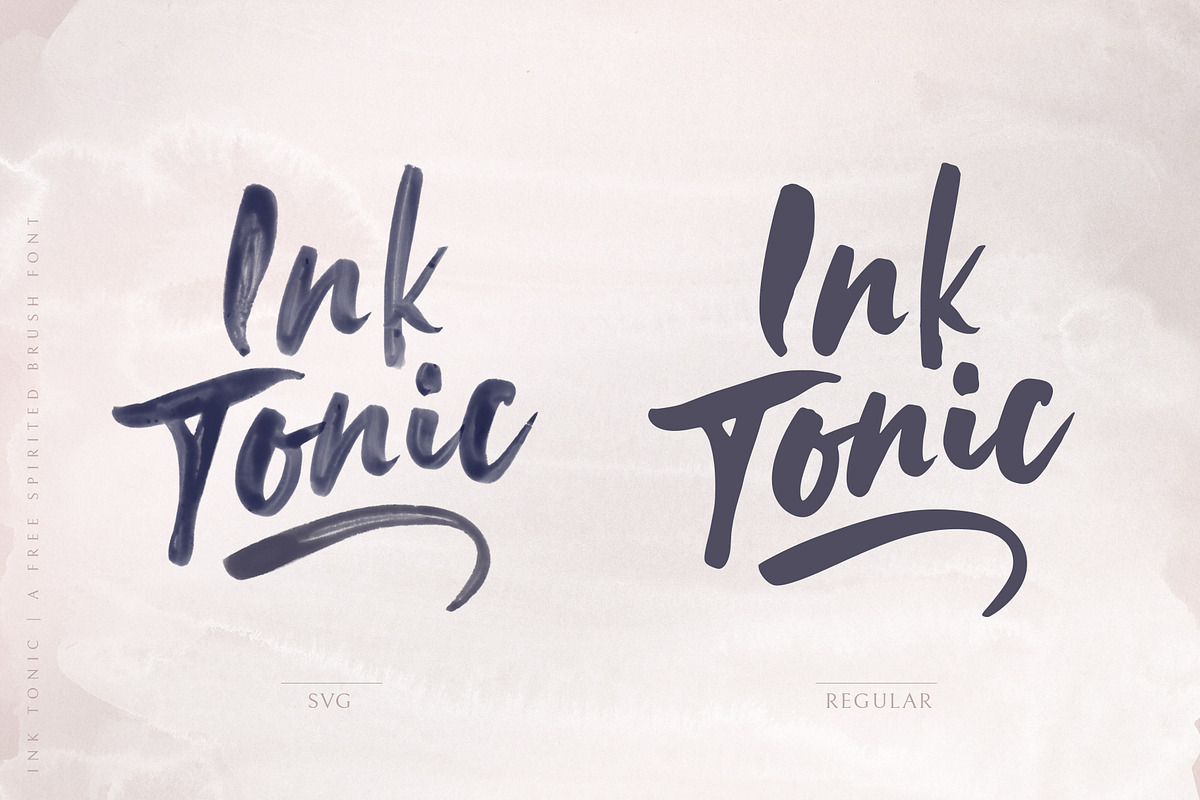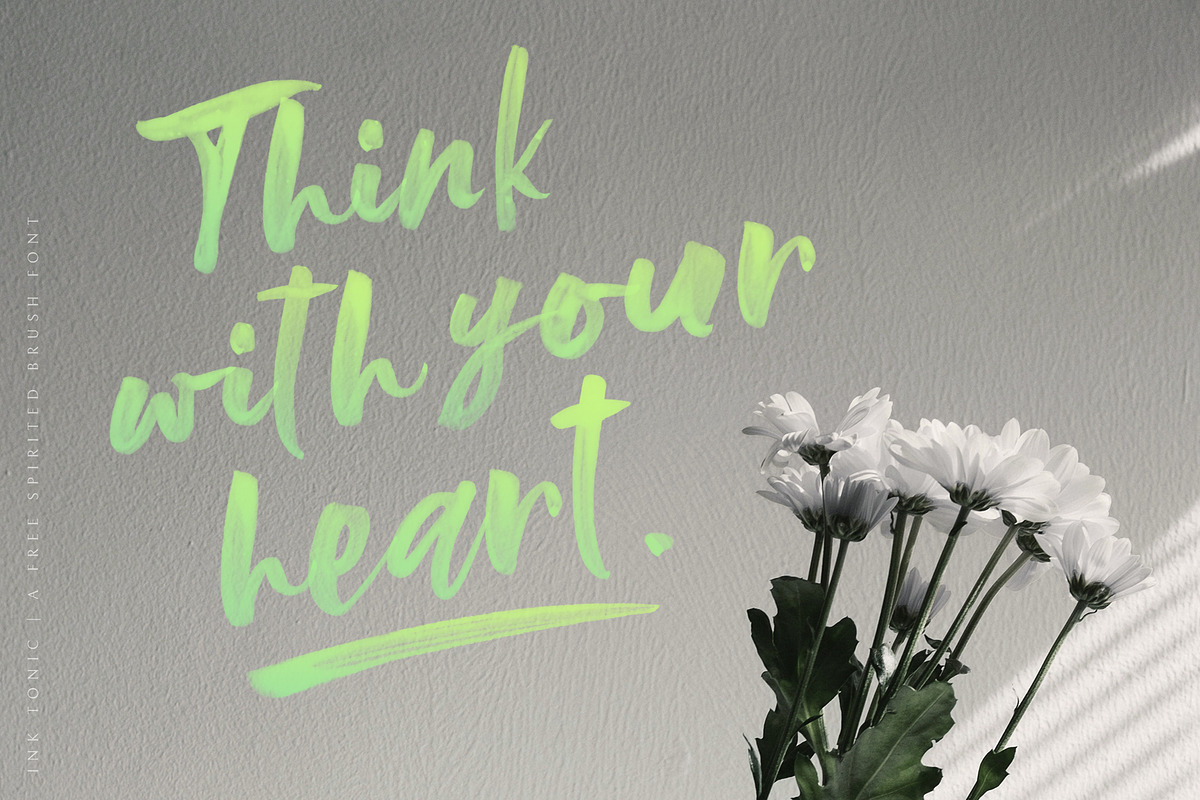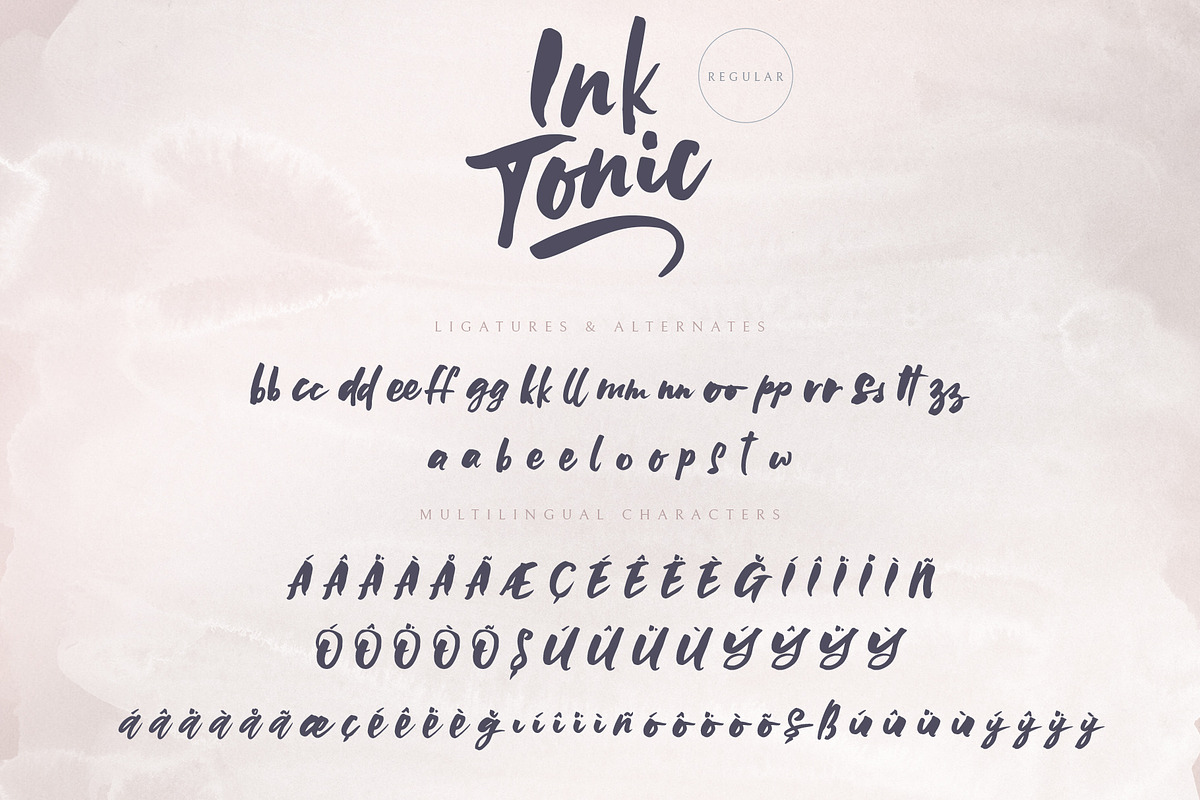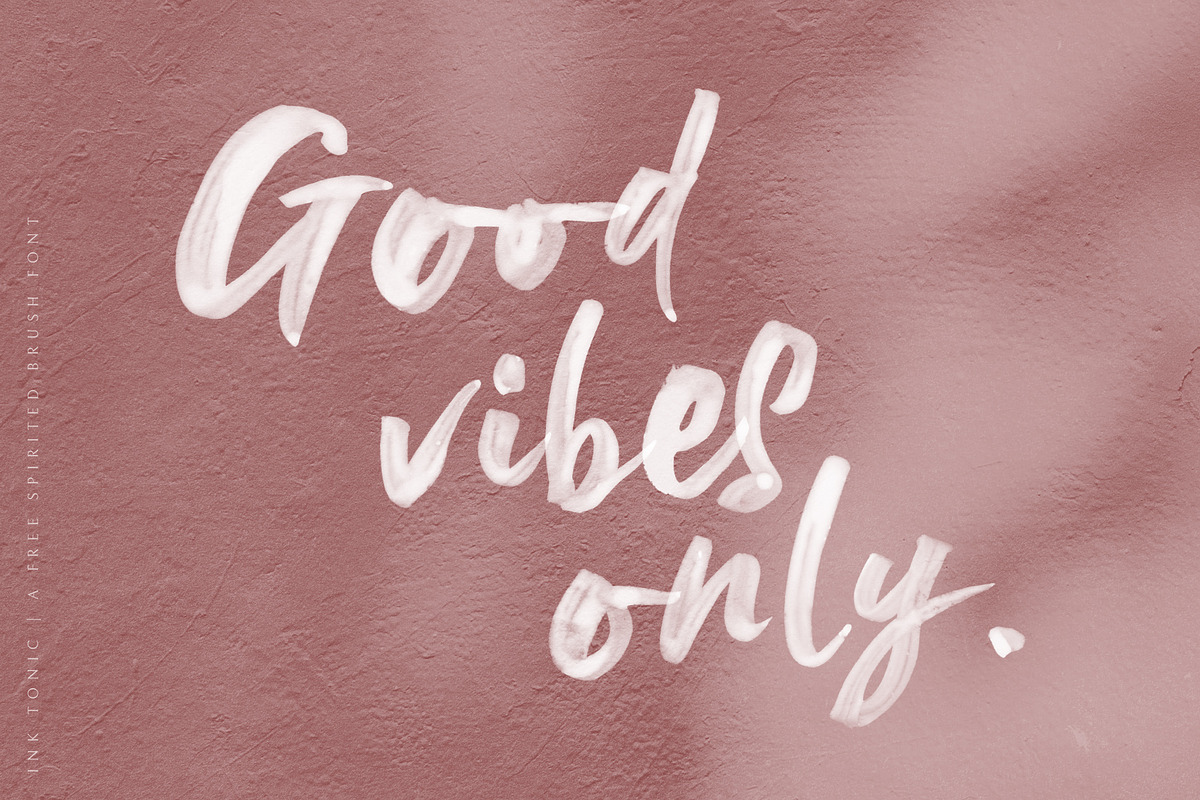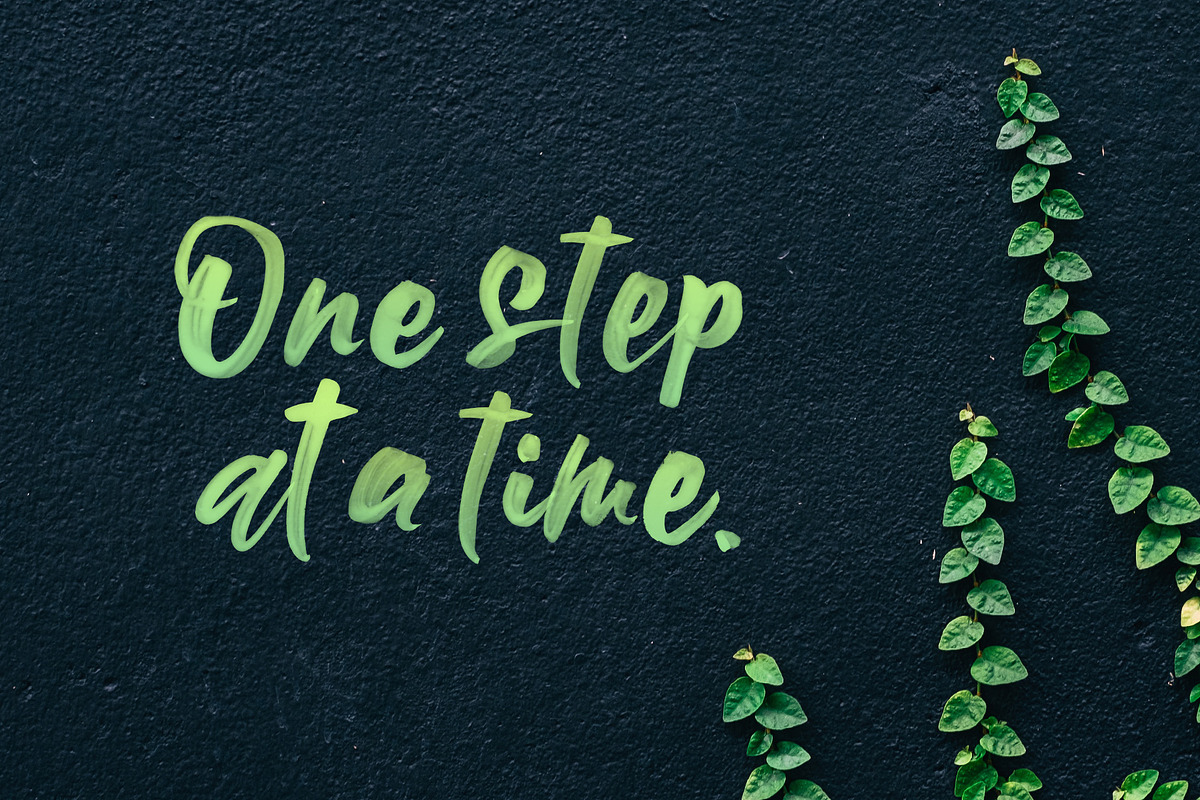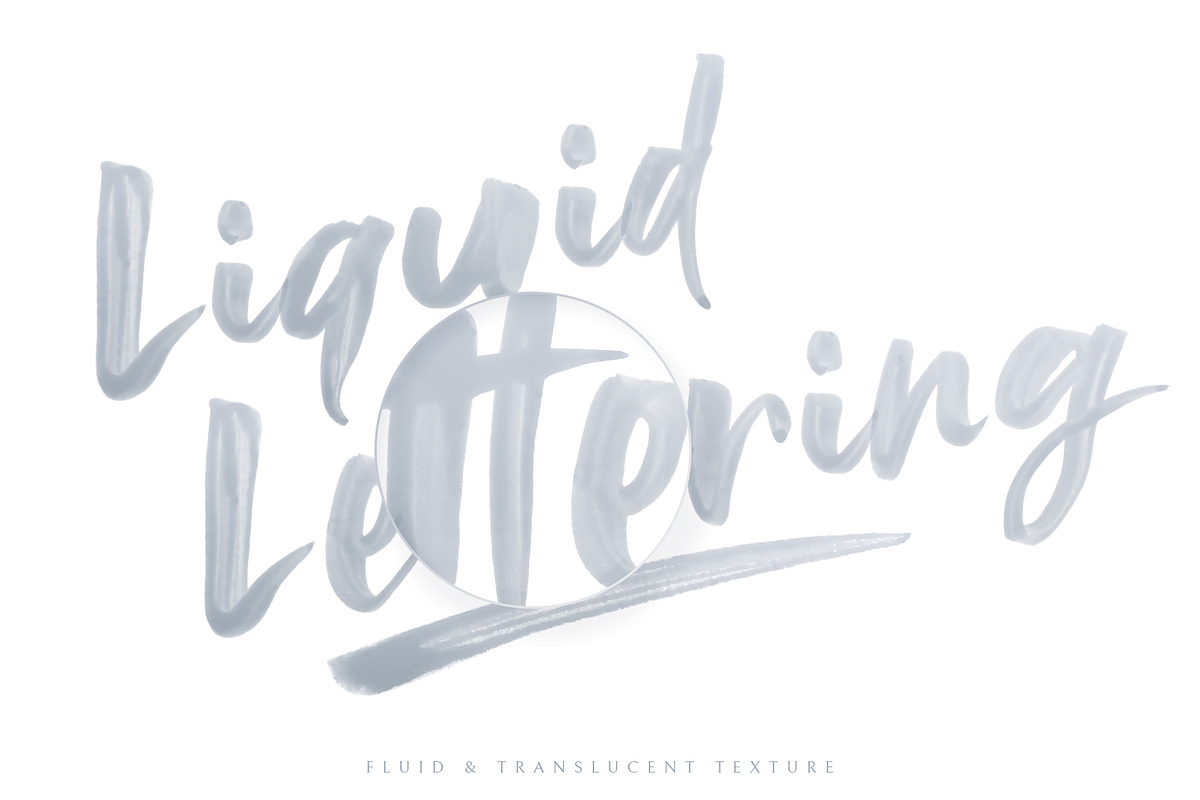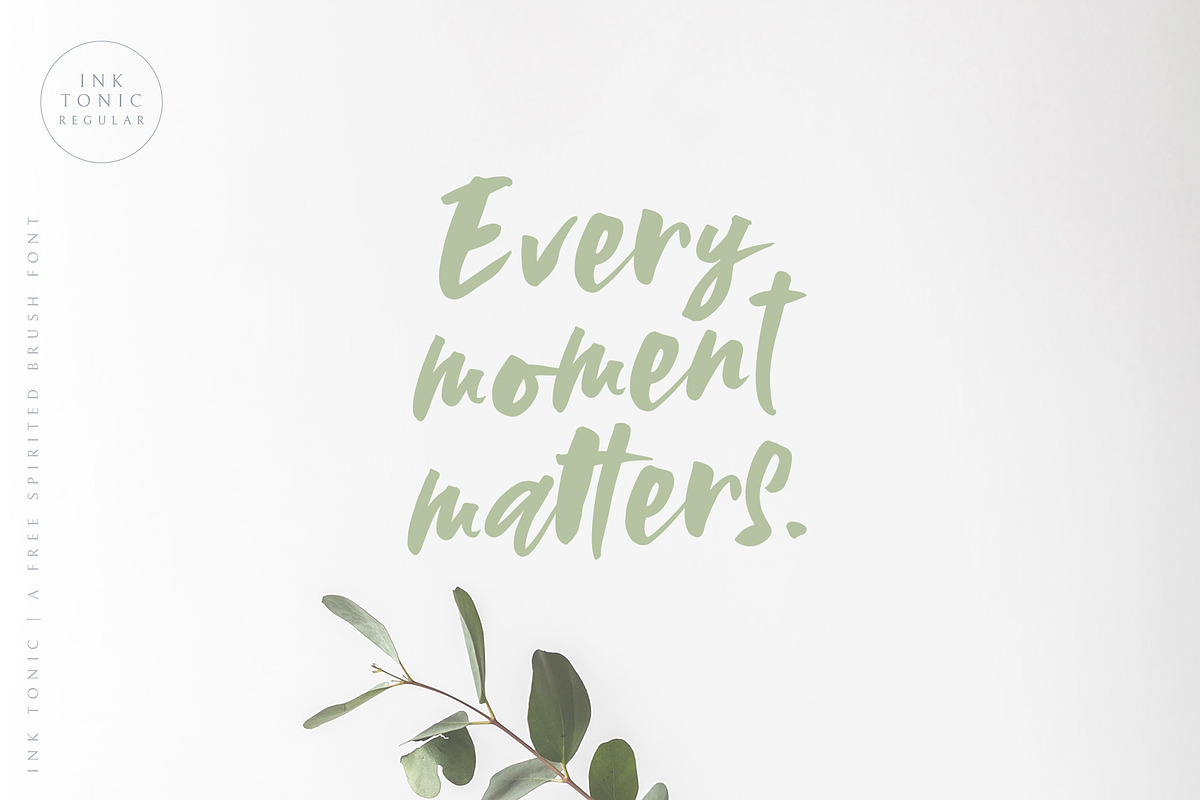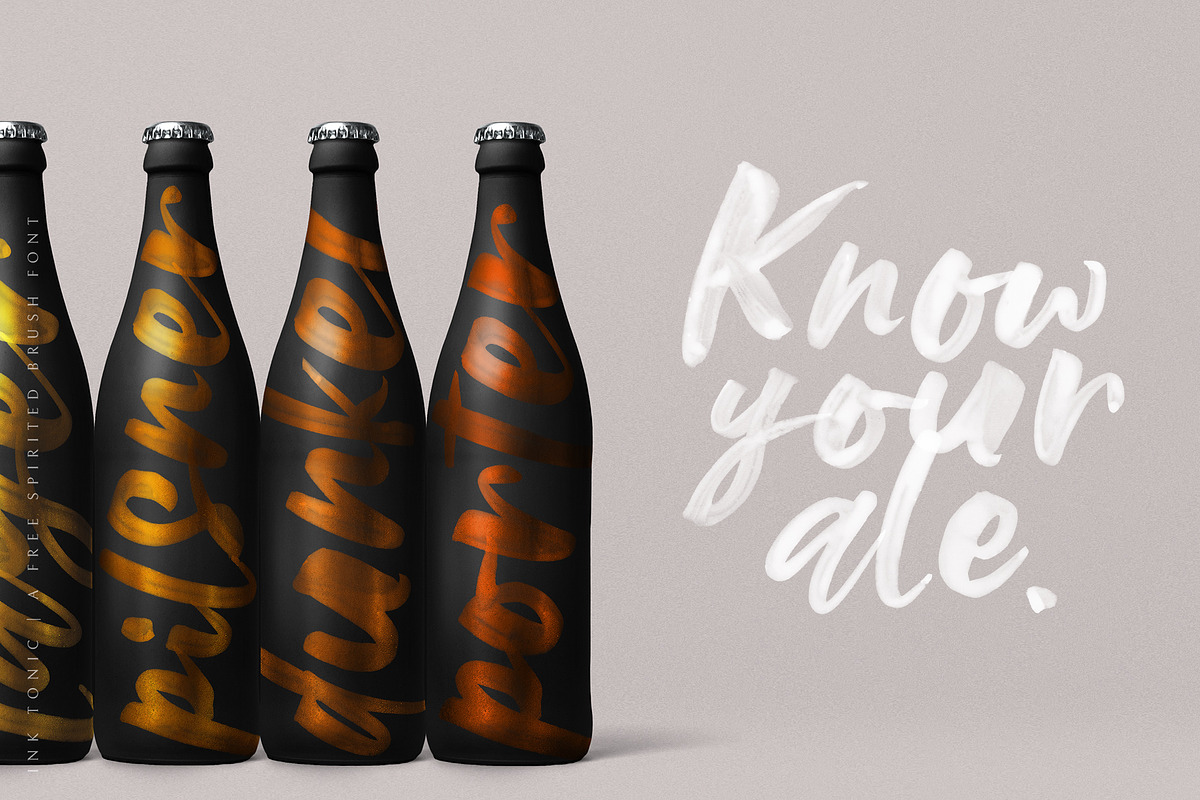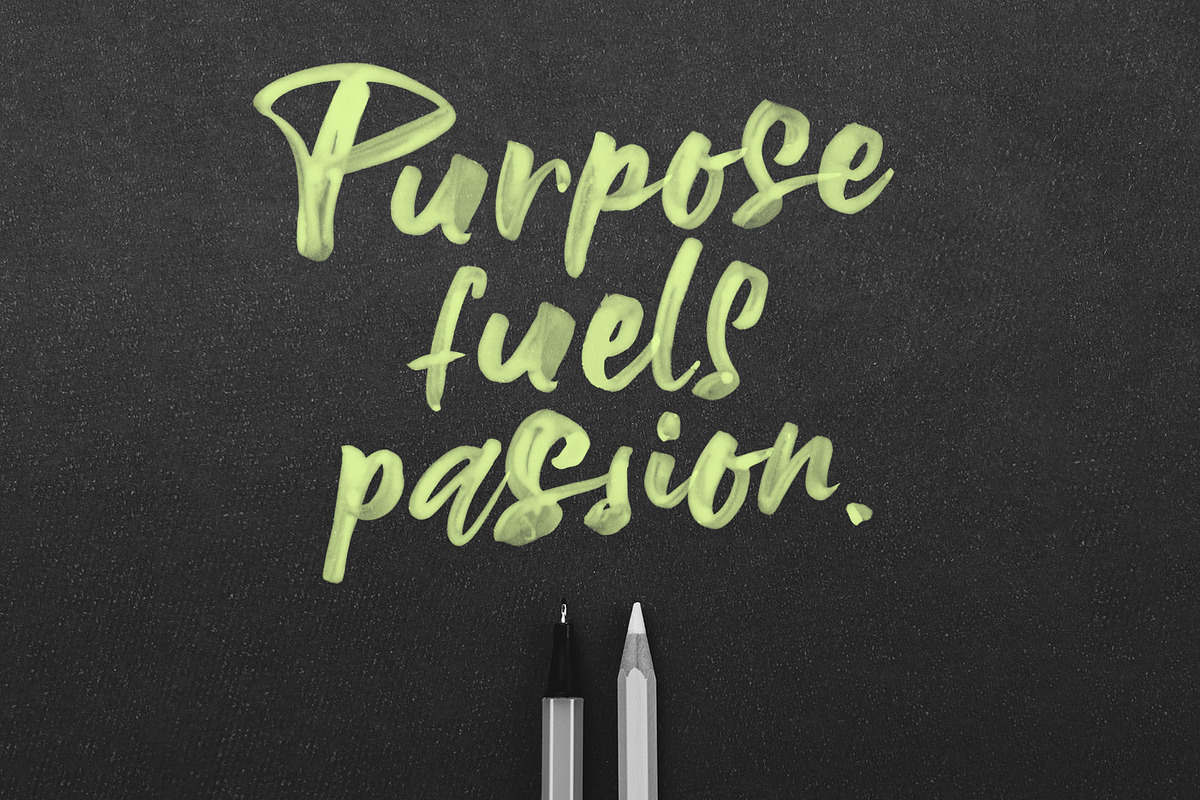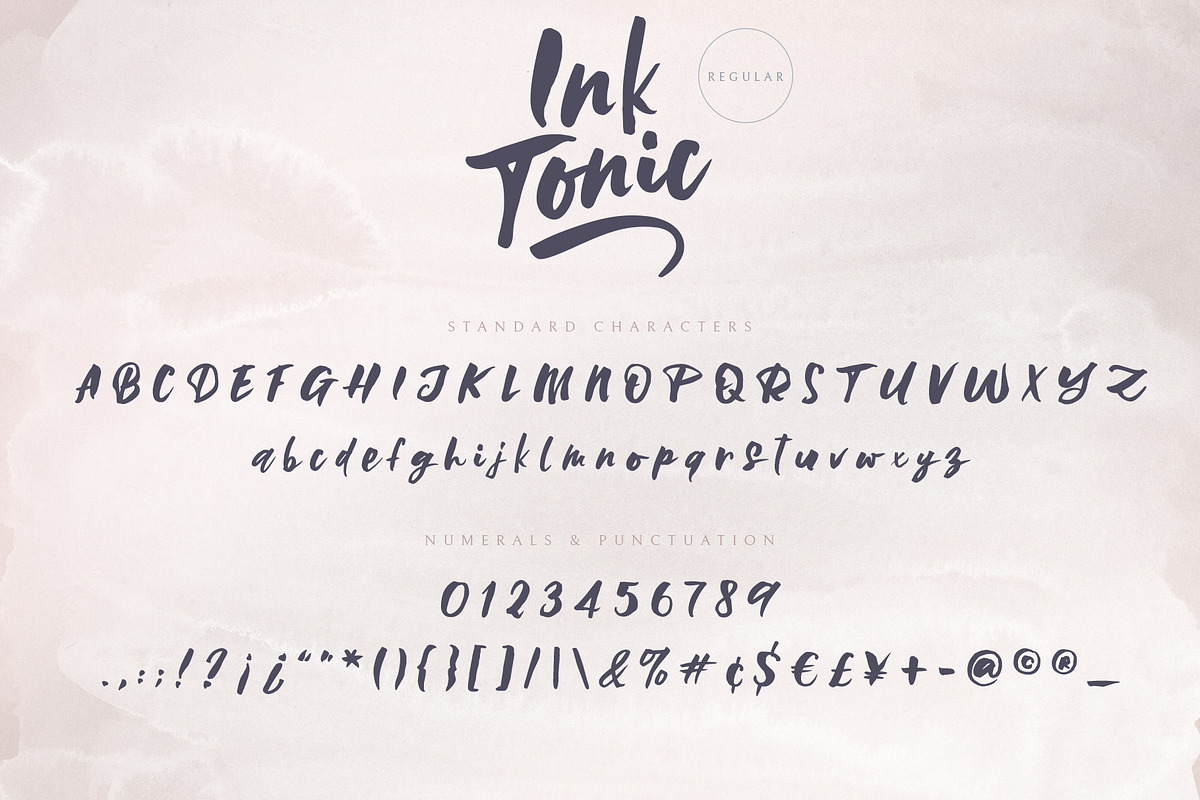
Ink Tonic | A SVG Brush Font
Meet Ink Tonic, a juicy, free spirited brush font, deliciously textured and unique.
Thanks to the new Opentype SVG font format, all the hand painted details and textures are now readily available, on keyboard, with no extra effort whatsoever. Authentic translucent strokes and ink marks perfectly show off the hand-lettering process that went into creating this typeface.
Ink Tonic features double letter ligatures and some alternate characters to sustain the hand lettered look. It also includes a full range of Punctuation Marks as well as Multilingual characters for wider support.
Ink Tonic SVG delivers its unique brush strokes and textures with an average Cap Height of 1000px, which is a great size for most projects.
Also available in vector format, Ink Tonic Regular is equally eye catching thanks to its high-contrast letterforms.
- Upper Case & Lower Case Letters
- Language Support